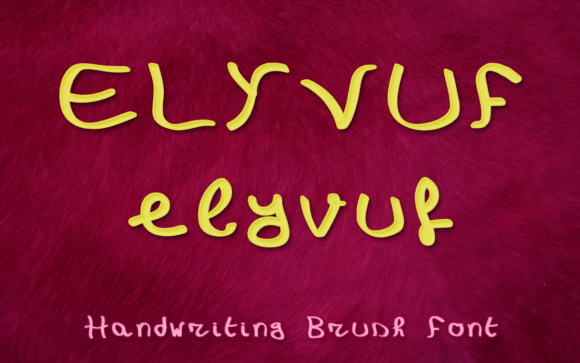
Step into a world of graceful allure and sophistication with Elyvuf Font, an extraordinary creation from LNT Design. This breathtaking script font will captivate your senses and bring a touch of refined elegance to your creative endeavors. Picture the exquisite beauty of hand-drawn letters, meticulously crafted with the finesse of an expert calligrapher. Elyvuf Font embodies the essence of artistry, adding an enchanting flair to your designs.
Immerse yourself in the charm of Elyvuf Font's organic curves and delicate strokes. Each letter is a masterpiece, flowing effortlessly from one to another, creating a visual symphony. This font is a true testament to the power of handwritten art, capturing the authenticity and allure of traditional penmanship in a digital format. Unleash your creativity and experience the joy of crafting designs that resonate with timeless elegance and heartfelt expression.
Whether you're a seasoned designer, a budding artist, or anyone with a passion for creating captivating visuals, Elyvuf Font is your perfect companion. Its versatility knows no bounds, making it an ideal choice for a wide range of projects:
- Craft enchanting wedding invitations that exude romance and sophistication.
- Design eye-catching social media graphics that leave a lasting impression.
- Create captivating posters that draw attention and captivate audiences.
- Add a touch of elegance to your business cards, brochures, and marketing materials.
- Bring life to your personal projects, such as greeting cards, scrapbooks, and DIY decorations.
Don't miss this opportunity to elevate your designs to new heights of beauty and sophistication. Embrace the enchanting allure of Elyvuf Font and let your creativity flourish like never before. Experience the joy of crafting designs that speak to the heart and leave a lasting impression.